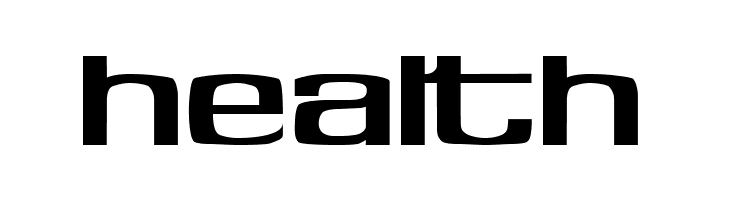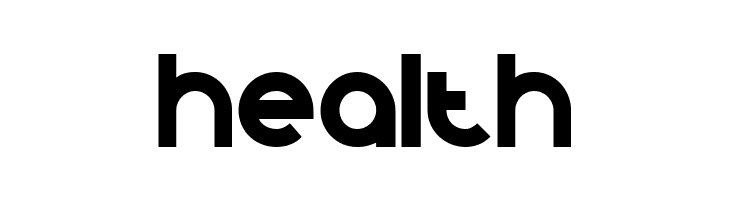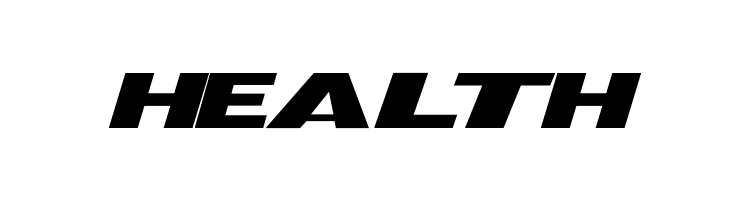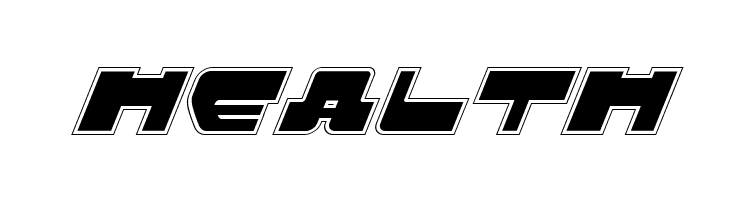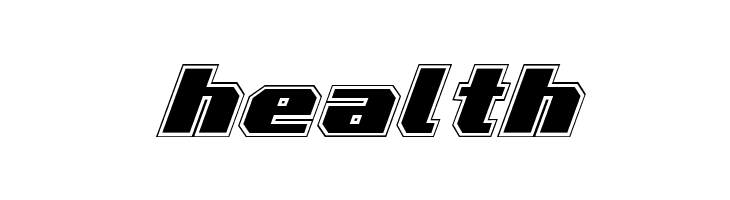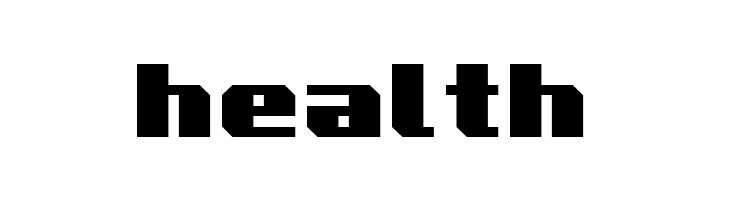
A bold, modern font with thick strokes and strong visual impact.
A bold, modern font with geometric structure and high contrast, ideal for impactful headlines.
A bold, geometric typeface with a vintage poster feel, ideal for impactful headlines.
A bold, futuristic italic font with sharp angles and geometric shapes.
A bold, italicized font with outlined characters and a dynamic, impactful style.
A bold, geometric font with angular, blocky characters.